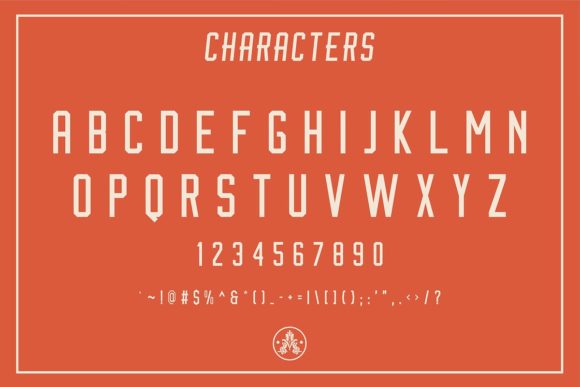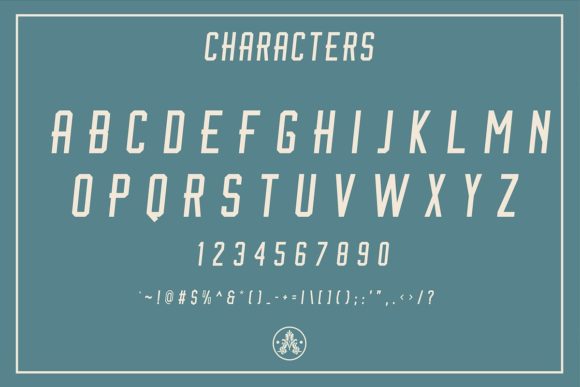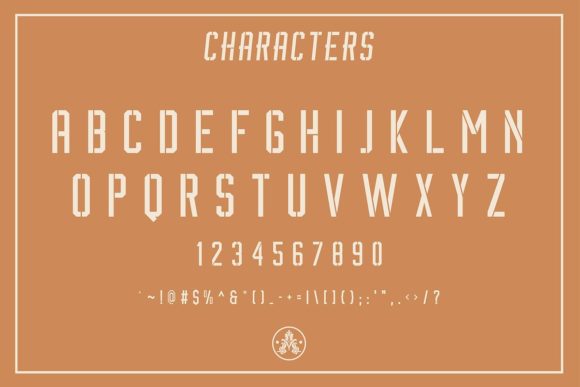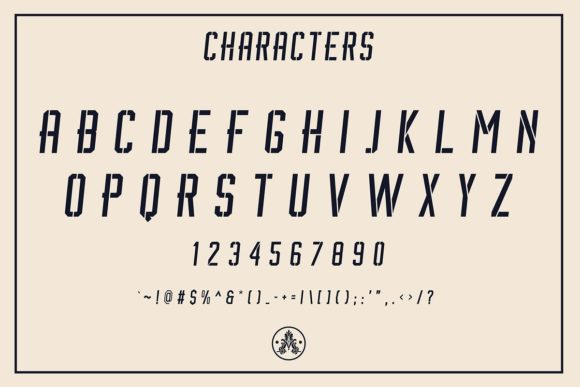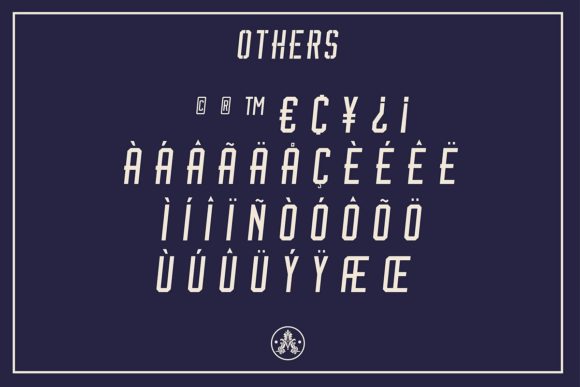
Introducing Brother Jhon Duo Font: The Ultimate Sporty Vintage Display Font
Are you tired of using the same old fonts in your designs? Look no further! Brother Jhon Duo Font is here to take your typography to the next level. This sporty vintage display font is perfect for designers and crafters who want to add a cool vibe to their work. In this article, we’ll dive into the features and benefits of Brother Jhon Duo Font, and explore how it can elevate your designs.
The Perfect Duo: Brother Jhon and Walfords
Brother Jhon is not just a standalone font, but a dynamic duo when paired with Walfords. The combination of these two fonts creates a unique and striking visual effect that’s sure to grab attention. Whether you’re designing a logo, poster, or social media graphic, Brother Jhon and Walfords are the perfect pairing.
Full Set of Numerals, Punctuations, and Multilingual Symbols
One of the standout features of Brother Jhon Duo Font is its comprehensive set of numerals, punctuations, and multilingual symbols. This means you can use the font to create a wide range of designs, from sports-themed graphics to international branding campaigns. The font includes:
- Full set of numerals (0-9)
- Punctuations (., !, ?, etc.)
- Multilingual symbols (à, é, î, etc.)
Iconic Baseball SVGs: Take Your Designs to the Next Level
To add an extra layer of coolness to your designs, Brother Jhon Duo Font comes with iconic Baseball SVGs. These graphics can be used to create custom illustrations, logos, or even social media graphics. The Baseball SVGs are perfect for sports-themed designs, but can also be used in a variety of other creative projects.
Why Choose Brother Jhon Duo Font?
So, why should you choose Brother Jhon Duo Font for your next design project? Here are just a few reasons:
- Sporty vintage vibe: Brother Jhon has a unique sporty vintage vibe that’s perfect for sports-themed designs or retro-inspired branding campaigns.
- Dynamic duo: Pair Brother Jhon with Walfords for a unique and striking visual effect.
- Comprehensive character set: The font includes a full set of numerals, punctuations, and multilingual symbols, making it versatile and practical.
- Iconic Baseball SVGs: Add an extra layer of coolness to your designs with the included Baseball SVGs.
How to Use Brother Jhon Duo Font
Using Brother Jhon Duo Font is easy! Here are a few tips to get you started:
- Pair with Walfords: As mentioned earlier, pairing Brother Jhon with Walfords creates a unique and dynamic visual effect.
- Experiment with Baseball SVGs: Use the included Baseball SVGs to add an extra layer of coolness to your designs.
- Play with font sizes and colors: Brother Jhon Duo Font looks great in a variety of font sizes and colors. Experiment to find the perfect combination for your design.
In conclusion, Brother Jhon Duo Font is a sporty vintage display font that’s perfect for designers and crafters who want to add a cool vibe to their work. With its comprehensive character set, iconic Baseball SVGs, and dynamic pairing with Walfords, Brother Jhon is a versatile and practical font that’s sure to elevate your designs. So why wait? Download Brother Jhon Duo Font today and take your typography to the next level!